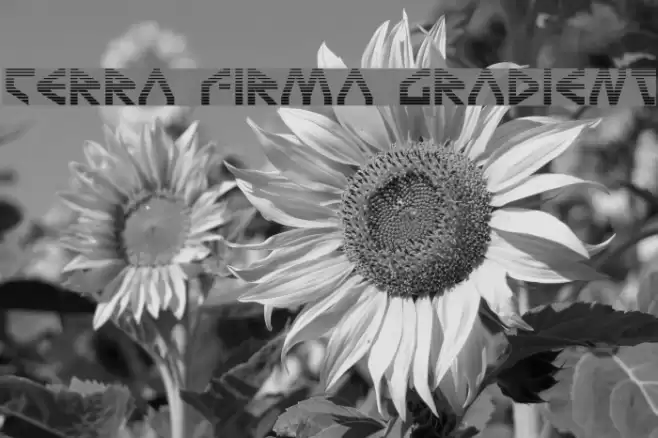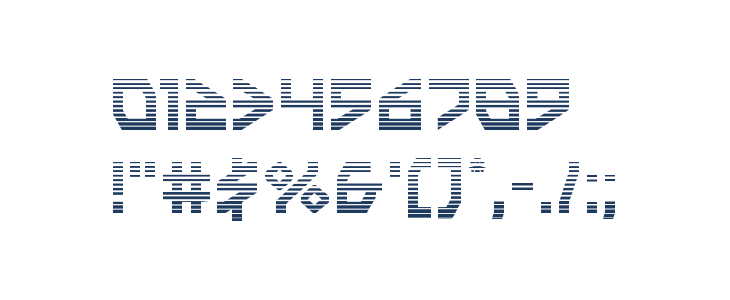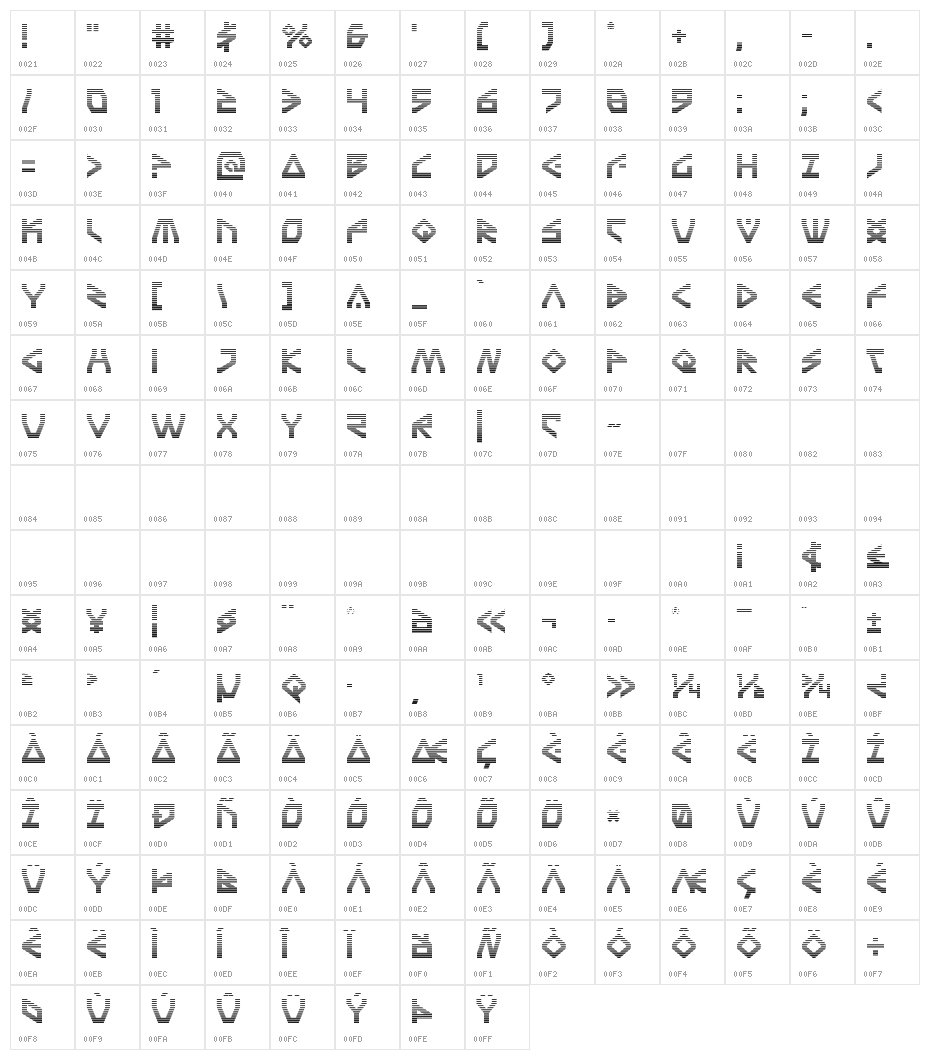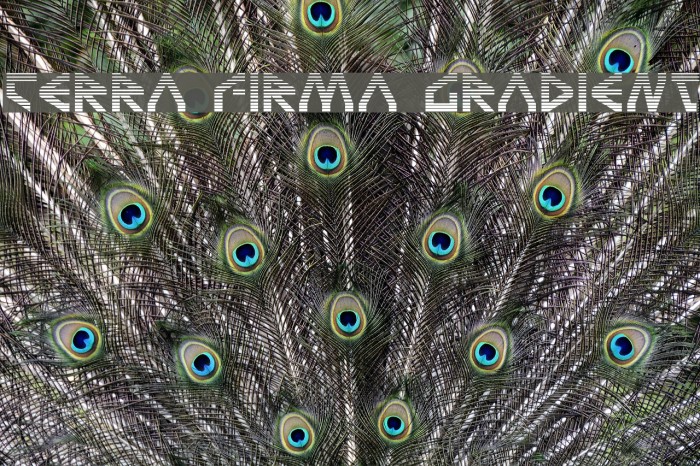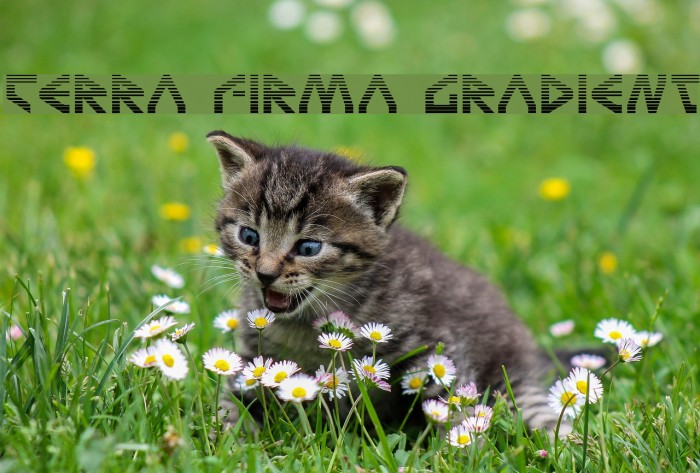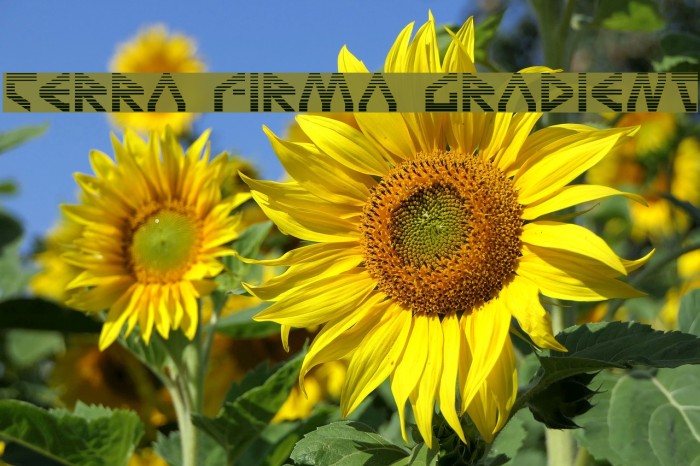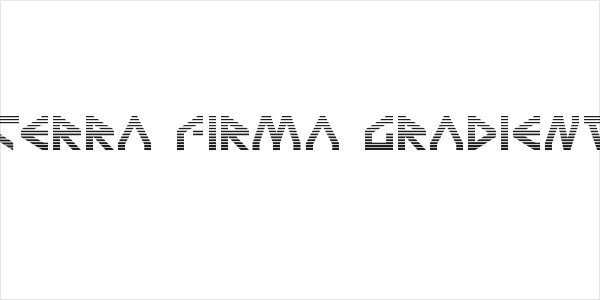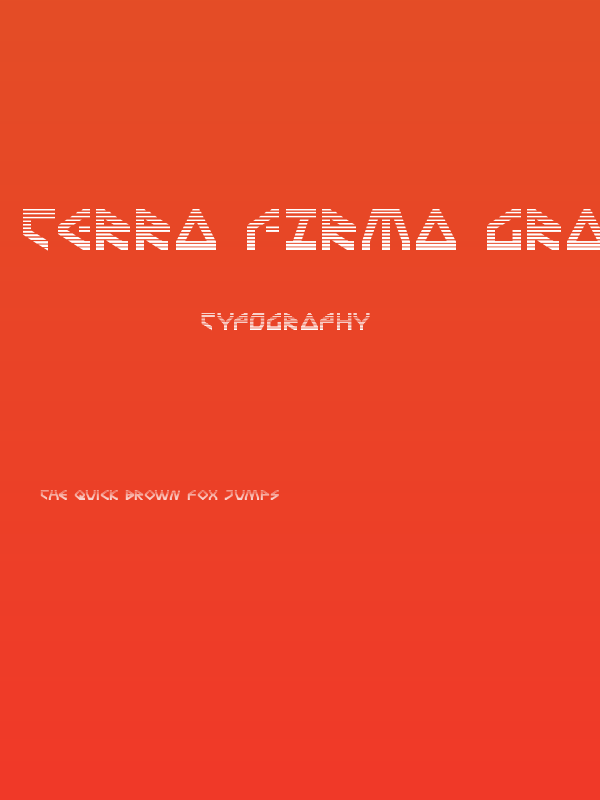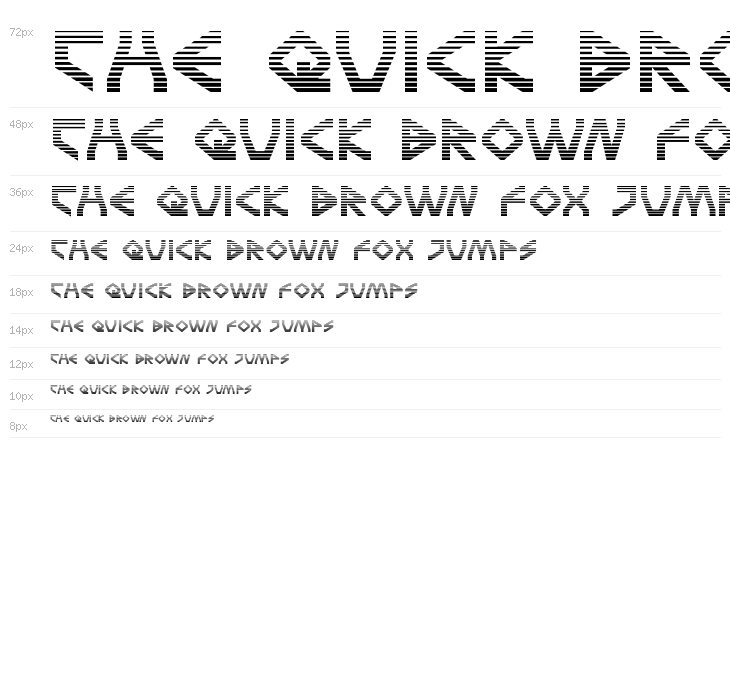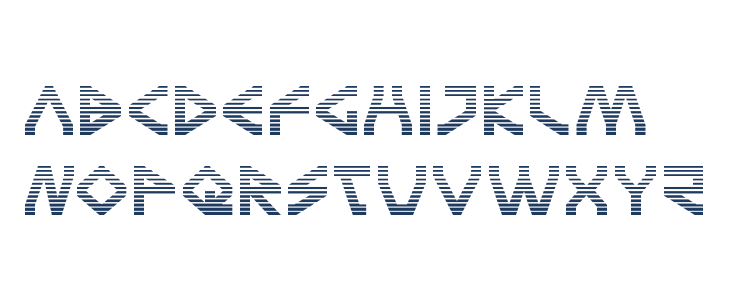
Terra Firma Gradient Font
Terra Firma Gradient Description
This font features a bold and futuristic design characterized by its unique use of horizontal lines to form each character. The geometric shapes are constructed with precision, giving it a modern and tech-inspired appearance. The uppercase and lowercase letters maintain a consistent style, with sharp angles and a sense of movement created by the gradient-like line patterns. Numbers and special characters follow the same design principles, ensuring uniformity across all elements. This font stands out with its distinctive visual rhythm, making it ideal for projects that require a strong and contemporary aesthetic.
A bold, futuristic font with geometric shapes and horizontal line patterns from Uncategorized fonts.
- Proposed Projects: Ideal for tech branding, sci-fi themed designs, digital art, and modern advertising.